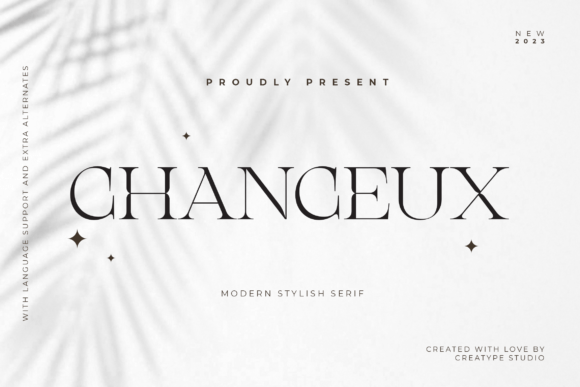
Chanceux Modern Stylish: Elevating Brand Design with a Timeless Serif Typeface
The Power of a Strong Typeface in Digital Marketing
In the fast-paced world of digital marketing, first impressions matter. The visual language you choose—especially your typeface—can make or break a campaign’s impact. A well-chosen font like Chanceux Modern Stylish isn’t just about aesthetics; it’s about communication, clarity, and connection. As a designer or marketer, you know that typography plays a critical role in shaping brand identity and audience engagement.
Chanceux Modern Stylish is a refined serif typeface designed to elevate any design project with its polished and elegant appearance. It combines the classic appeal of serif fonts with modern sensibilities, making it a versatile choice for a wide range of creative applications. Whether you're crafting social media graphics, email headers, or website banners, this font offers a sophisticated look that resonates with both professional and personal branding efforts.
Enhancing Visual Hierarchy and Readability
One of the key strengths of Chanceux Modern Stylish is its ability to create strong visual hierarchy. Its clean lines and balanced proportions make it ideal for headlines, callouts, and titles. When used effectively, it can guide the viewer’s eye through content, ensuring that important messages stand out without overwhelming the audience.
Readability is crucial, especially on mobile screens and in fast-scrolling feeds. Chanceux Modern Stylish performs exceptionally well in these environments due to its clear letterforms and consistent spacing. This makes it an excellent choice for thumbnails, Instagram posts, and YouTube covers where quick readability is essential.
Building Brand Recognition and Consistency
Consistency is the cornerstone of effective brand identity. Using Chanceux Modern Stylish across all digital assets—from social media posts to promotional banners—helps reinforce brand recognition. Its timeless design ensures that your messaging remains cohesive and professional, regardless of the platform.
This serif font is particularly effective for logos, brand marks, and editorial-style content. Its refined appearance aligns well with luxury, elegance, and sophistication, making it a great fit for brands in fashion, lifestyle, and premium product categories.
Strategic Use Across Digital Platforms
Chanceux Modern Stylish is not limited to one use case—it's adaptable and functional across multiple platforms. Here are some practical applications:
- Social Media Graphics: Use it for Instagram captions, Facebook banners, and Twitter headers to add a touch of class.
- Email Headers: Its elegant style works well for subject lines and signature blocks, enhancing the professionalism of your email campaigns.
- YouTube Thumbnails: The font’s legibility and style make it perfect for creating attention-grabbing thumbnails that stand out in search results.
- Web Design: Incorporate it into website headers, navigation menus, and hero sections for a polished user experience.
- Promo Graphics: Ideal for launch announcements, seasonal promotions, and event invitations, where a refined look adds value.
When designing for online shops or e-commerce platforms, Chanceux Modern Stylish can be used for product titles, taglines, and promotional banners. Its visual appeal helps create a more engaging shopping experience while maintaining brand consistency.
Font Pairing and Design Flexibility
To maximize the effectiveness of Chanceux Modern Stylish, consider pairing it with complementary fonts that enhance its strengths. For example, combining it with a clean sans-serif font like Helvetica Neue or Montserrat can provide a balanced contrast that works well for body text and captions.
If you’re aiming for a more editorial or luxury feel, pairing it with another serif font such as Playfair Display can create a cohesive and sophisticated design aesthetic. This flexibility allows you to tailor your typographic choices to match the tone and purpose of each campaign.
Creating Memorable Campaigns with Chanceux Modern Stylish
Real-world examples highlight how Chanceux Modern Stylish can transform campaigns. For instance, using it in a sale announcement graphic can instantly convey exclusivity and urgency. Similarly, a product teaser with this font can set the tone for a high-end launch, capturing attention and building anticipation.
For inspirational quote graphics, Chanceux Modern Stylish adds a sense of elegance and thoughtfulness. Webinar banners and content series visuals also benefit from its refined appearance, helping to establish a consistent and recognizable brand voice.
Best Practices for Using Chanceux Modern Stylish
Finally, don’t hesitate to experiment with variations in weight, size, and color to find the best way to integrate Chanceux Modern Stylish into your design workflow. With its versatility and elegance, this font is a powerful tool for marketers, creators, and designers looking to elevate their visual storytelling.